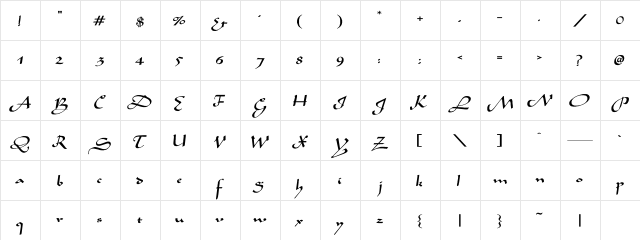
Sahara-Normal Wd Regular
Design Context for Sahara-Normal Wd Typeface
Sahara-Normal Wd is a composed and adaptable typeface that performs quietly and consistently across a wide range of design contexts.